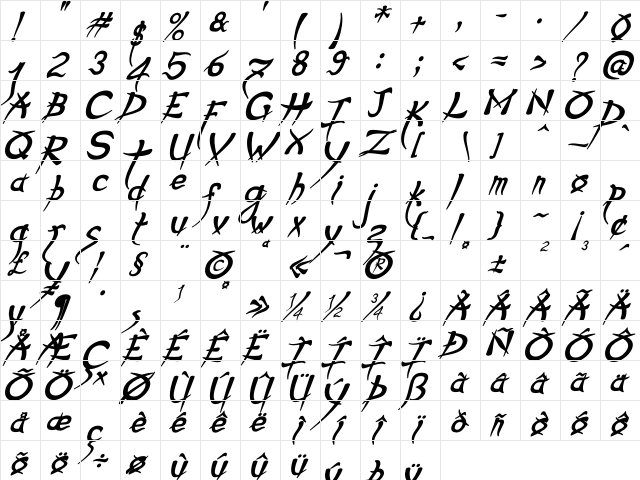
Psycho Bold Italic
Bold Italic · Remy Demarest  ·
Design Context for Psycho Typeface
Psycho is a composed and adaptable typeface that performs quietly and consistently across a wide range of design contexts. Its italic angle brings a sense of urgency and motion to the letterforms. Its bold stroke weight gives it real presence on the page.
Pro Tip: Use Psycho for emphasis, pull quotes, and subheadings where its slanted energy can add rhythm to the layout.